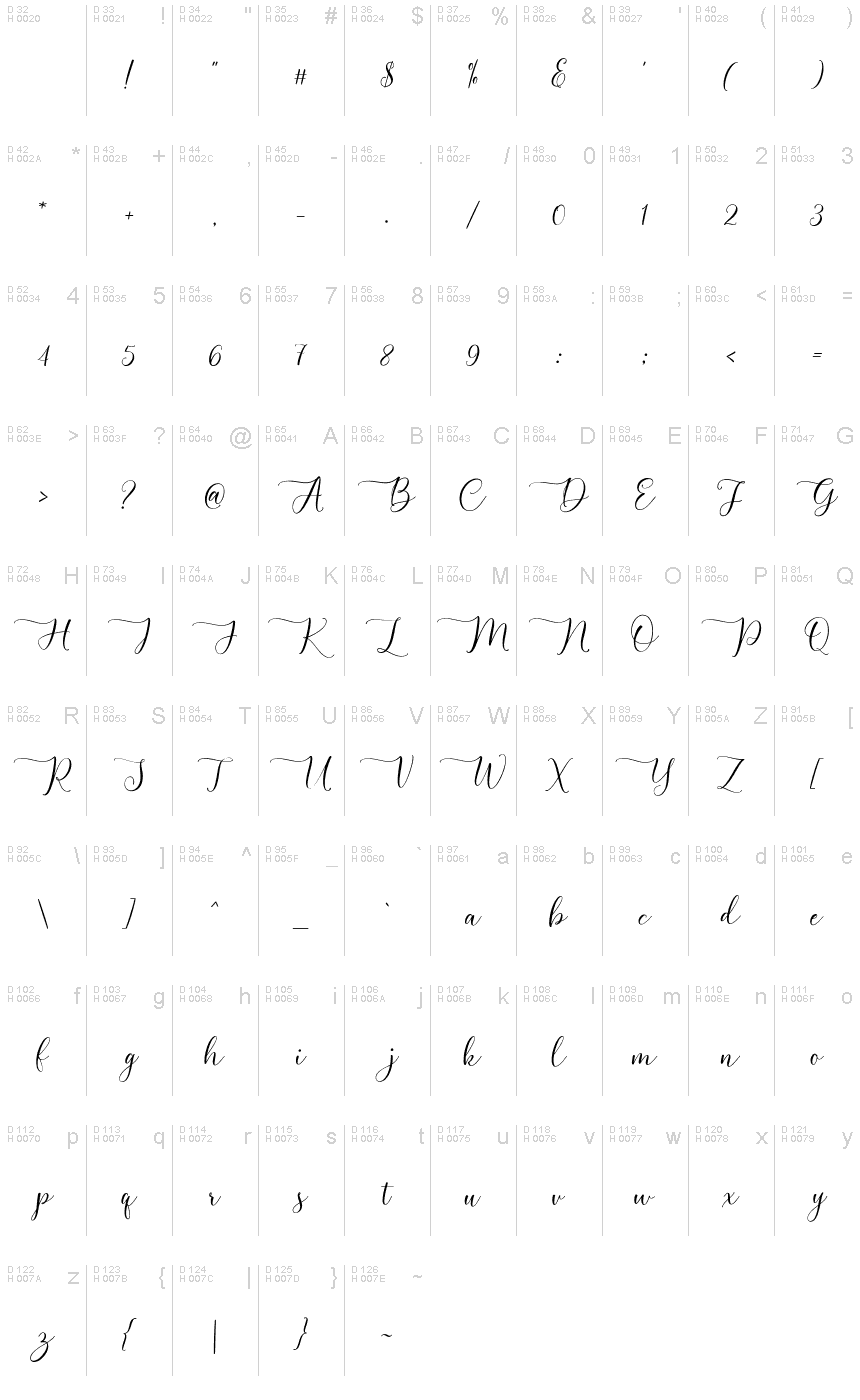
ChandlerScript
Chandler Script
Introducing a new beautiful calligraphy font.
Chandler Script is perfect for wedding invitations, greeting cards, logo design, t-shirt, and any other projects requiring a handwritten.
A wide range of swashes and alternates are included, and also supported PUA encoded.